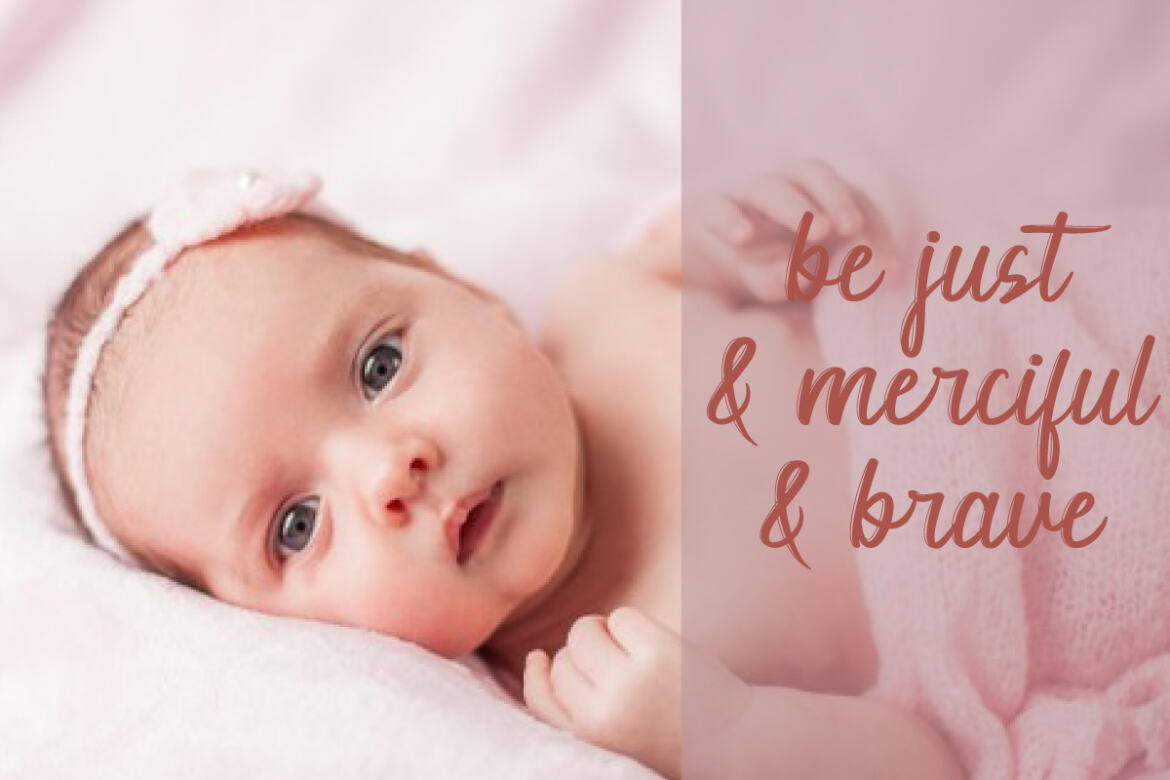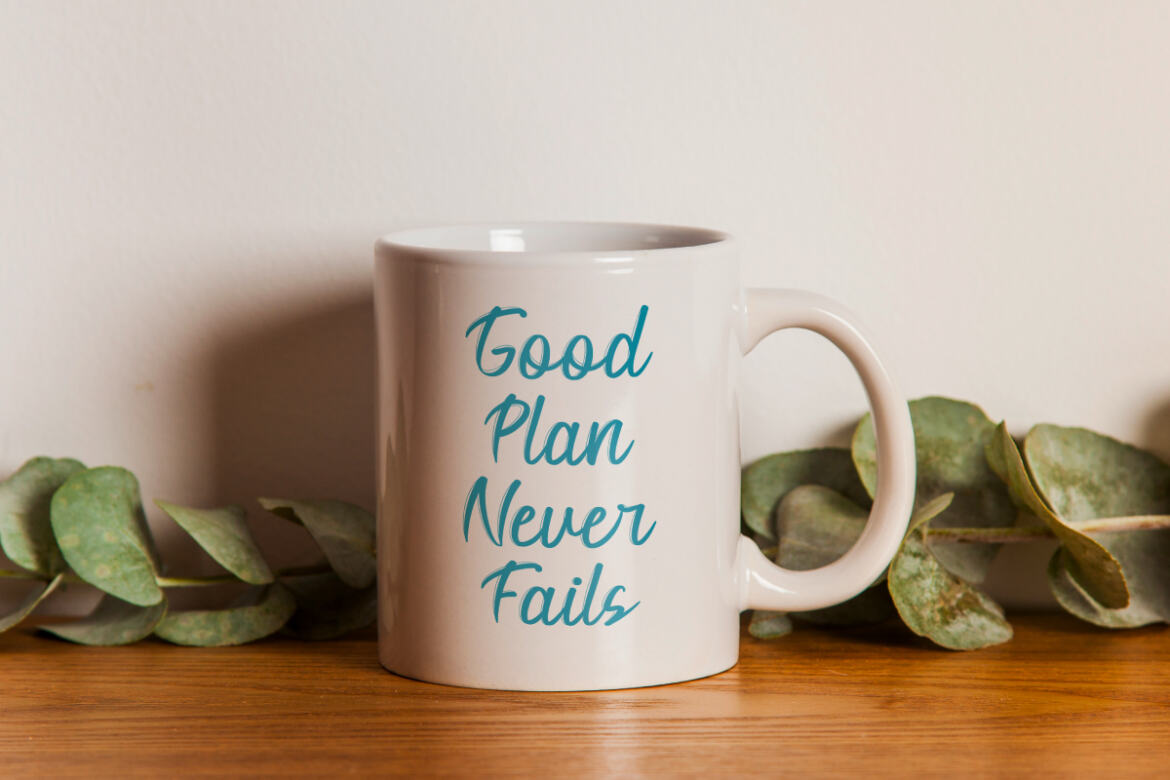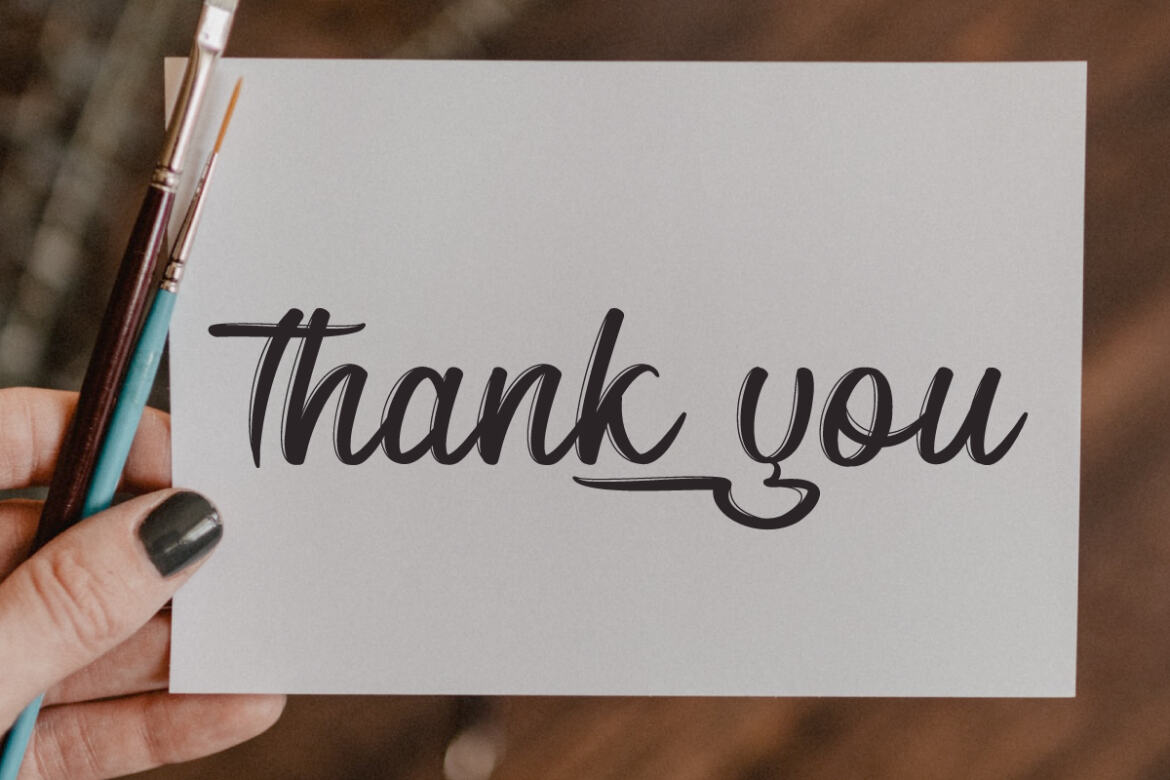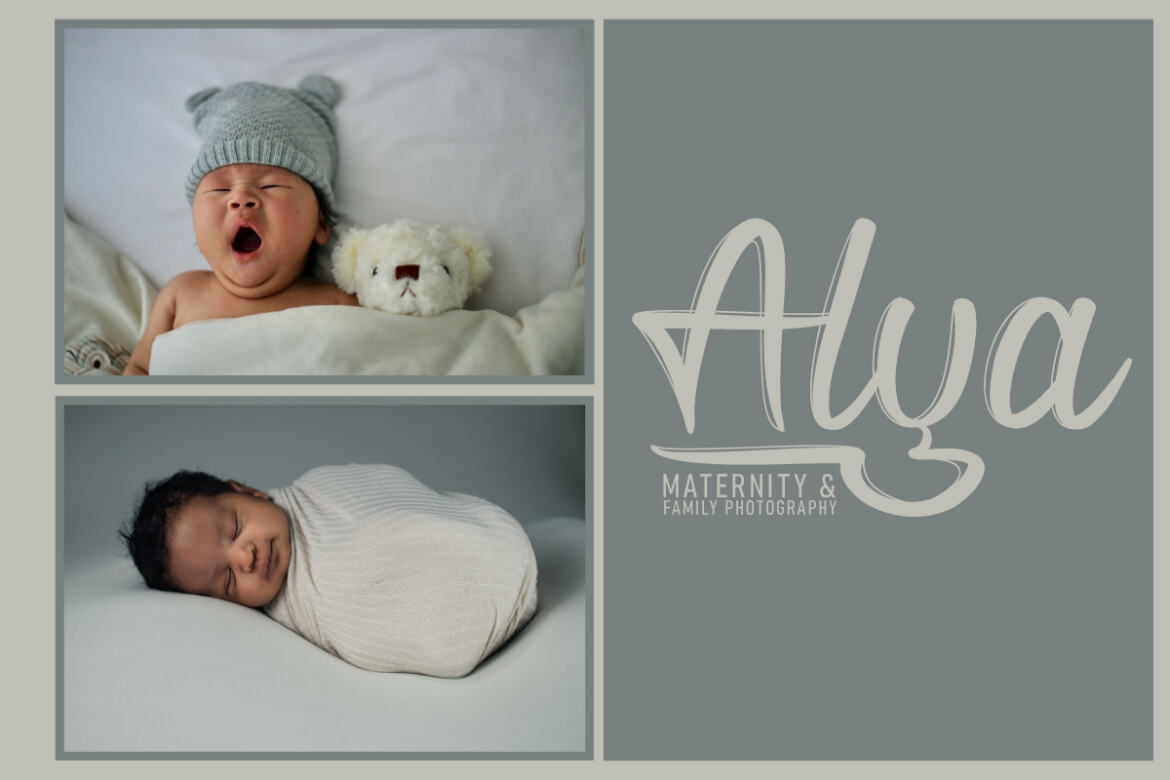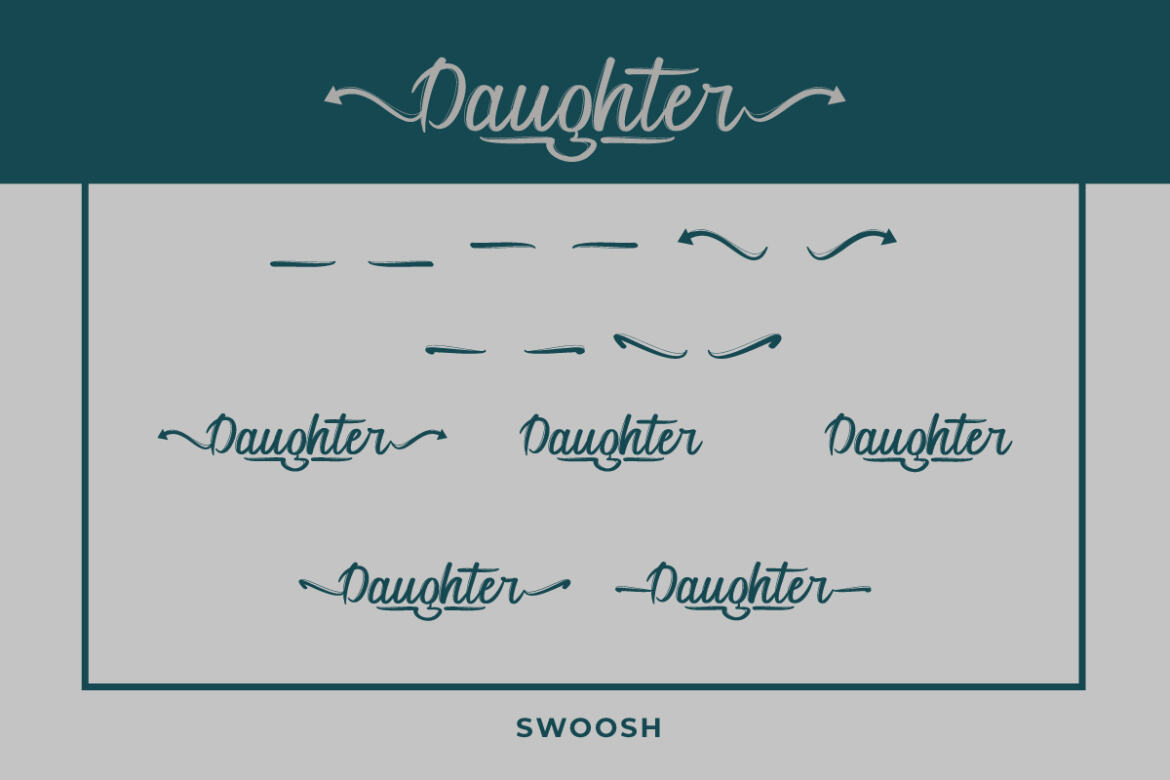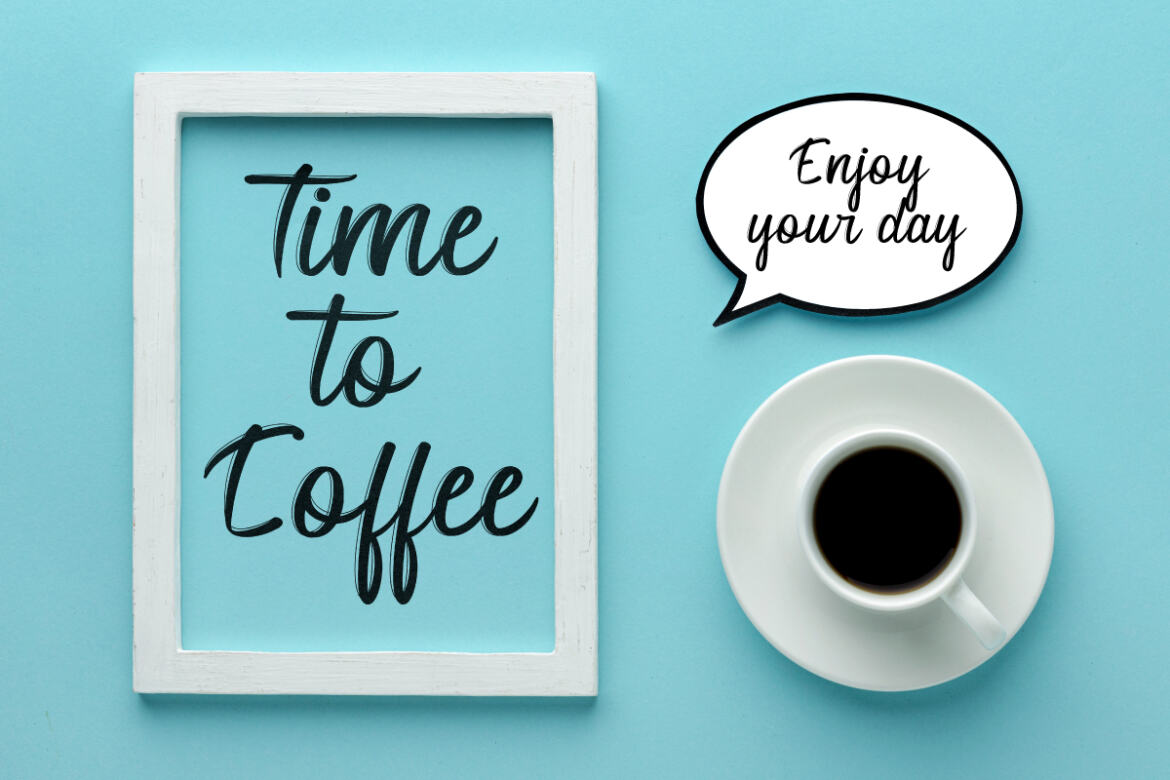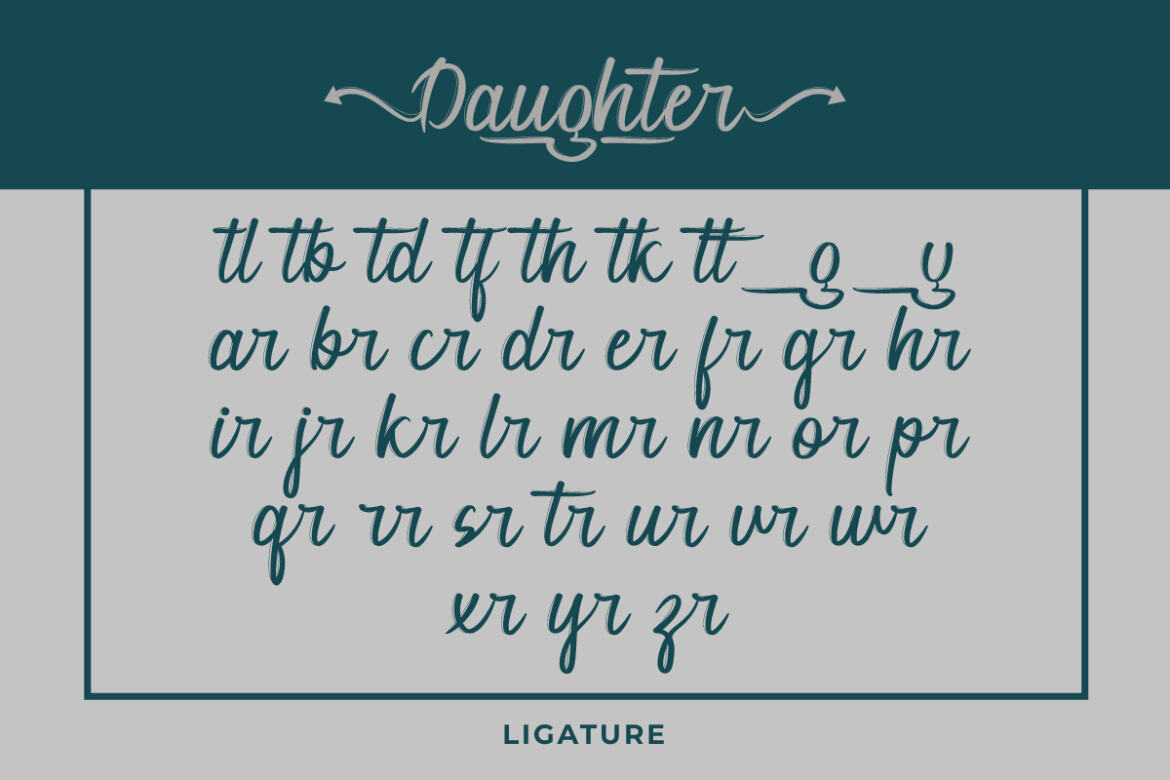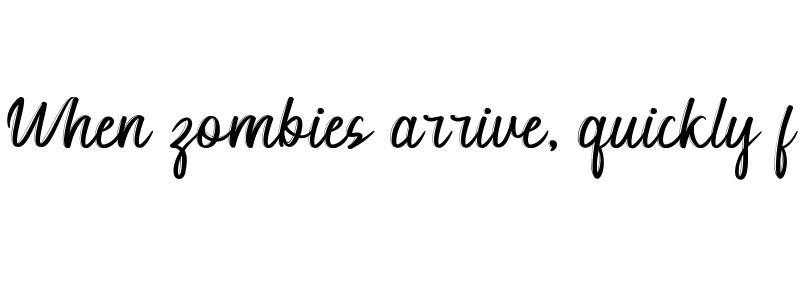
Daughter
Daughter is a brush calligraphy font with a unique style ; delivering a stylish script which is guaranteed to add an eye-catching appeal. The style of this font are stylish, classic, elegant, a fresh new handwritten brush script with a touch of class, and of course, outstanding looks. Here’s what you’ll get on the package :
Daughter Font tested Work on PC & Mac.  It is inspired by old style and combination with Hand Lettering style. We made with personality touch every single sketch. I hope this can make inspire you from your work. will be awesome for poster, logos, handwritten quotes, product packaging, header, poster, merchandise, social media & greeting cards. Also great for branding projects, homeware designs, product packaging – or simply as a stylish text overlay to any background image.